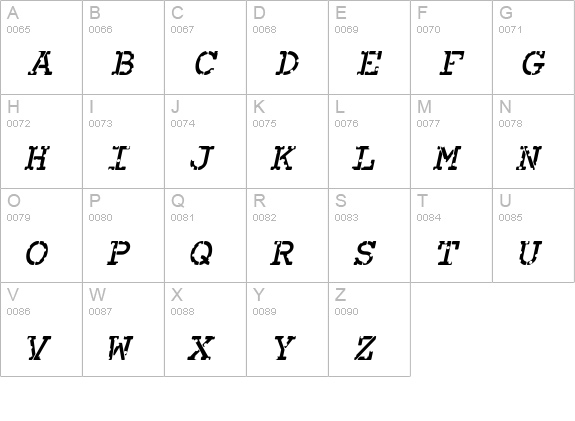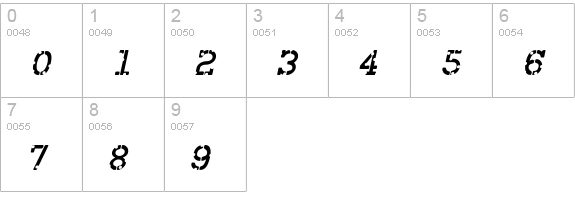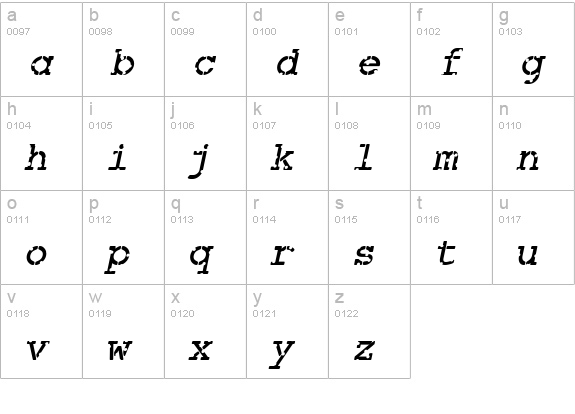
Combat Tested BTN Oblique is a distinctive, italic variant in the Combat typeface family \xE2\x80\x94 well suited to design and typography projects.
Combat Tested BTN Oblique font is a bold and dynamic typeface that exudes strength and power. Its sturdy letterforms and slanted angles give it a rugged and battle-ready appearance, making it perfect for projects that require a tough and impactful aesthetic. This font has been meticulously crafted and meticulously tested to ensure its durability and readability in any situation. Whether used for military-themed designs, action-packed advertisements, or edgy branding projects, Combat Tested BTN Oblique font will make a bold statement and leave a lasting impression. Best of all, Combat Tested BTN Oblique font is available for free download at FontsMarket.com. This means you can easily incorporate this striking typeface into your designs without breaking the bank. So why wait? Download Combat Tested BTN Oblique font today and unleash its powerful presence in your projects.